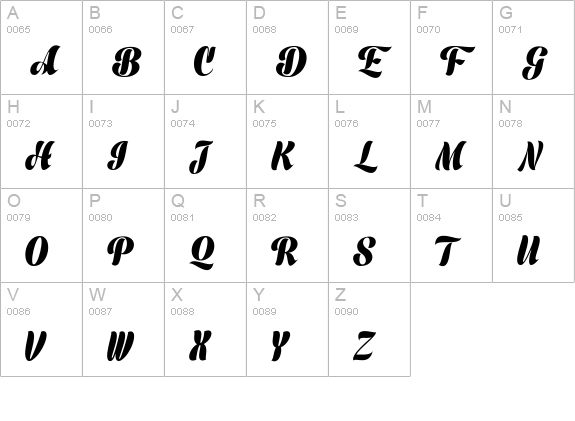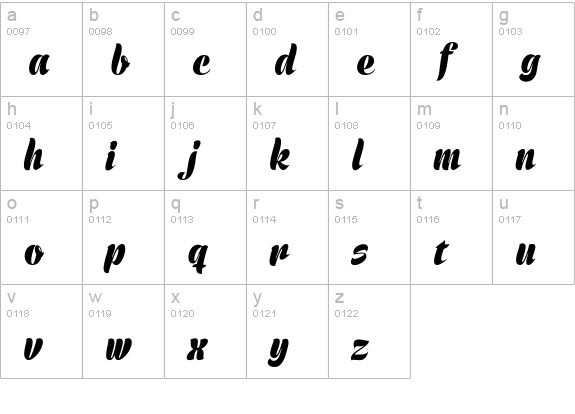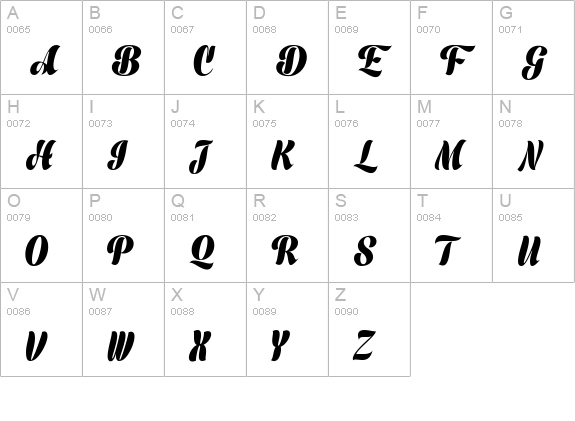
Prime Script PERSONAL USE ONLY Font Details
Introducing Prime Script PERSONAL USE ONLY font, a stunningly versatile typeface that combines elegance and readability effortlessly. This font is perfect for bringing a touch of sophistication to any project, whether it be invitations, logos, branding, or social media posts. With its delicate and flowing strokes, Prime Script PERSONAL USE ONLY font captures the essence of hand-lettering, adding a personal and authentic touch to your designs. Its beautifully crafted characters make it a standout choice for wedding invitations, greeting cards, or any creative endeavor that requires an elegant and graceful touch. But what sets Prime Script PERSONAL USE ONLY font apart is its accessibility. It is freely available to download at FontsMarket.com, allowing designers, artists, and enthusiasts to bring their creative visions to life without any cost attached. This font offers the perfect combination of beauty and affordability, making it an invaluable tool for any project, big or small. Designed with versatility in mind, Prime Script PERSONAL USE ONLY font comes in multiple weights and styles, ensuring that it adapts seamlessly to any design concept. From bold and impactful headlines to refined and subtle body text, this font can handle it all with ease. The attention to detail in Prime Script PERSONAL USE ONLY font is evident in its carefully crafted letterforms, ligatures, and alternate characters. These features allow for endless possibilities in creating unique and customized typographic compositions that truly stand out from the crowd. Whether you are a professional designer or a creative enthusiast, Prime Script PERSONAL USE ONLY font is the perfect addition to your font library. Its timeless beauty, combined with its free availability at FontsMarket.com, makes it a must-have for anyone looking to elevate their design projects to new heights. So don't miss out on this incredible opportunity to download Prime Script PERSONAL USE ONLY font and unlock a world of creative possibilities.